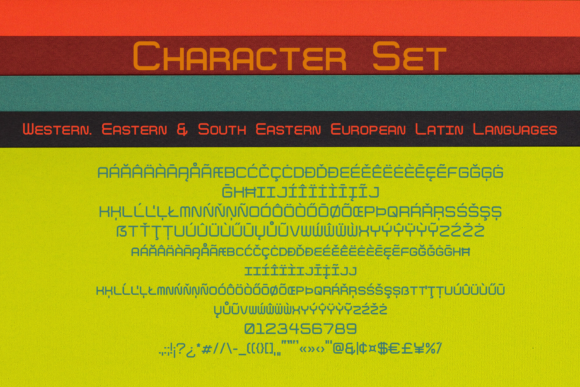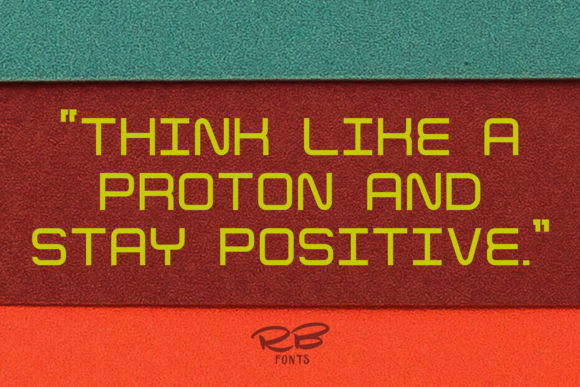
The Ultimate Guide to Box Blokk Font: Elevate Your Designs with a Futuristic Twist
I’ll never forget the time I was working on a futuristic project for a tech startup, and I was struggling to find the perfect font to convey their brand’s bold and innovative personality. The design had to scream “cutting-edge technology,” but no matter what font I tried, it just didn’t feel right. That’s when I stumbled upon Box Blokk, a monospaced, display squared font that instantly elevated my design to the next level. In this article, I’ll share my experience with Box Blokk, its unique features, and how to make the most of it in your designs.
An Honest Review of Box Blokk
Box Blokk is a game-changer for designers looking to add a touch of futurism to their work. Here’s what I love about it:
- ✨ Strong and confident appearance: Box Blokk exudes a sense of boldness and dynamism, making it perfect for headlines, titles, and emphasis text.
- ✅ Monospaced design: The font’s monospaced nature gives it a unique, technical feel that’s ideal for coding, tech, or sci-fi related projects.
- 💻 Excellent for digital use: Box Blokk is optimized for digital displays, making it a great choice for websites, apps, and video games.
While Box Blokk is an amazing font, it’s not without its quirks:
- 🤔 Limited legibility at small sizes: Box Blokk can be challenging to read at smaller font sizes, so it’s best used for headlines or large text.
- ⚠️ Not suitable for body text: Due to its monospaced design and bold appearance, Box Blokk is not ideal for long blocks of text.
A Practical Guide to Using Box Blokk
- Experiment with OpenType features, such as stylistic alternates, to add visual interest to your text.
The Story Behind Box Blokk
Box Blokk was designed with the goal of creating a font that embodies the spirit of innovation and technology. Its creator wanted to craft a font that’s both bold and elegant, perfect for headlines and titles that need to make a statement.
| Font Name | Box Blokk Font |
| Author | rbfonts |
| What is Box Blokk best used for? | Box Blokk is ideal for headlines, titles, and emphasis text in designs that require a strong, futuristic feel. |
| Can I use Box Blokk for body text? | No, Box Blokk is not suitable for long blocks of text due to its monospaced design and bold appearance. |